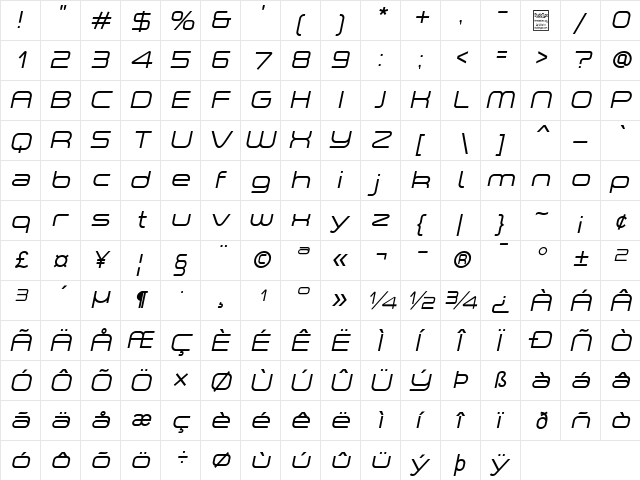
a峰ace Italic
Design Context for a峰ace Typeface
a峰ace takes a measured approach to typography — its balanced proportions and neutral character make it a reliable workhorse for both digital and print work. The dynamic lean of this cut emphasises speed and emphasis in any layout.
Pro Tip: Try a峰ace for annotation and caption copy alongside an upright companion — the contrast in angle creates a dynamic but ordered typographic system.